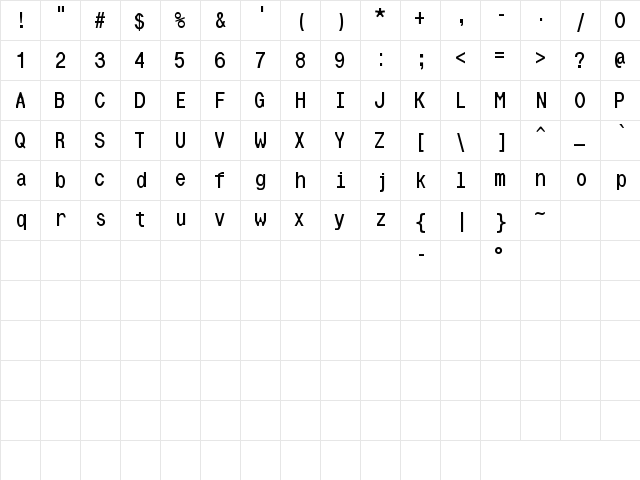
Complete STAR JR Regular glyph index. Displaying only characters natively supported by STAR JR Regular font.
STAR JR is a composed and adaptable typeface that performs quietly and consistently across a wide range of design contexts.